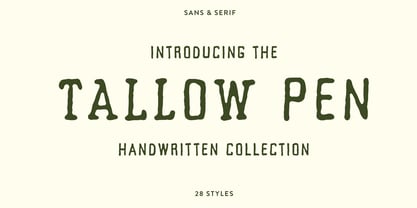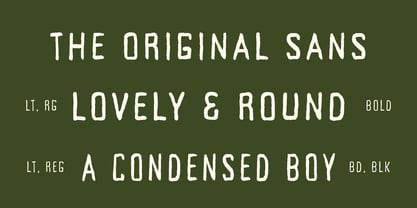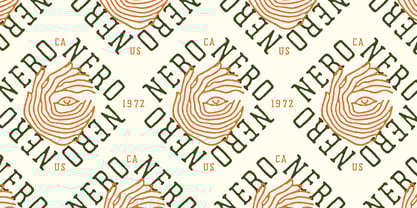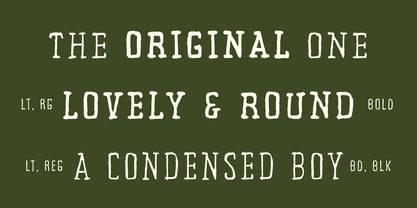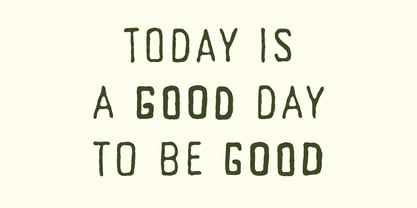
TC Tallow Pen
by Tom Chalky
The TC Tallow Pen Font Family was designed by Tom Chalky and published by Tom Chalky. TC Tallow Pen contains 28 styles and family package options.
Introducing the Handcrafted Tallow Pen Font Collection – A rustic family that exudes hand-crafted authenticity in every letter. With 28 styles/weights, Tallow Pen brings organic charm and subtle quirks, perfect for projects that need a touch of artisanal warmth.
• Each style is infused with personality, blending classic structure with gentle, rounded edges for a friendly yet refined look.
• This is a full-caps font family; typing in lowercase delivers alternate letterforms, effortlessly adding authenticity by reducing the repetition of letters.
• From branding and logos to vintage-inspired designs, Tallow Pen shines wherever handcrafted appeal is desired.
• Complete with a full Latin 1 glyph set, Tallow Pen supports a wide variety of languages.
About Tom Chalky
Obsessed with handwritten, handpainted, and imperfect. Almost every design can benefit from a human’s touch or, at the very least, the appearance of one. It is relatable, tactile, and authentic. It stands out in our clean and crisp digital world, and it is this charismatic and expressionate style of design that I strive for in each and every one of my fonts.